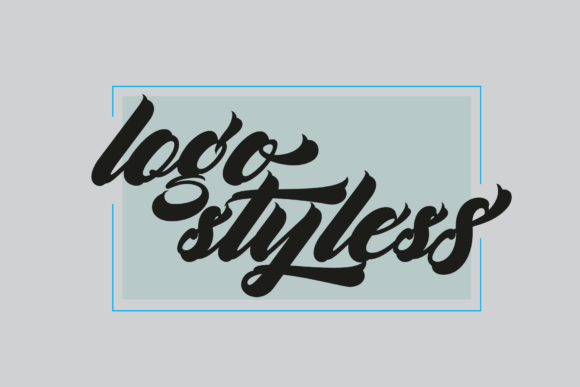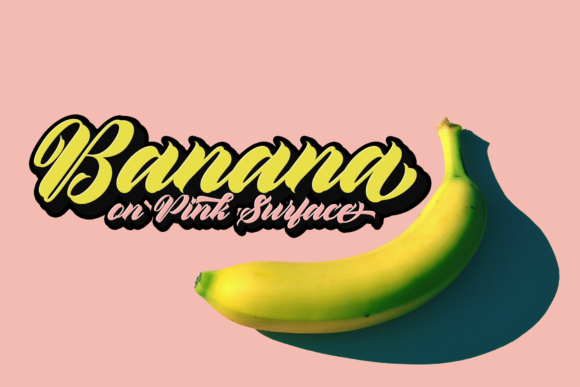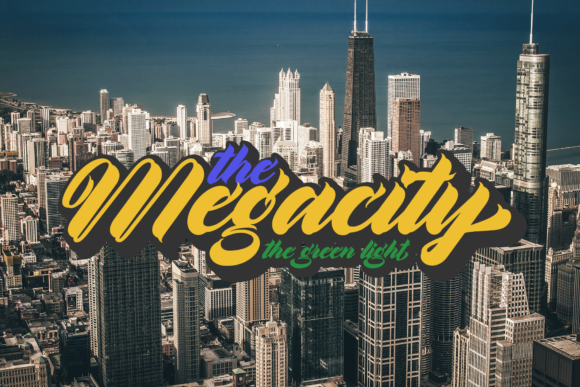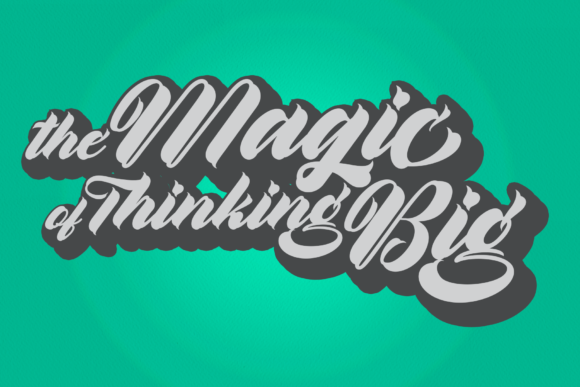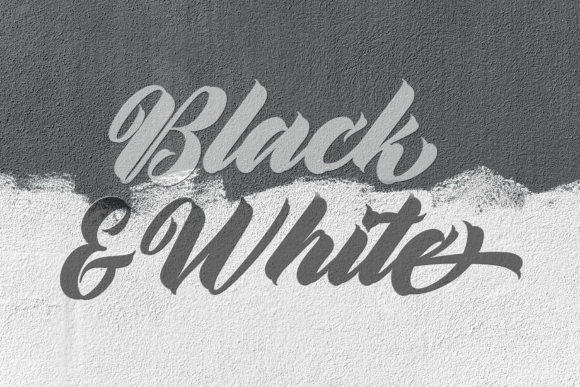
Introduction to Platanos Font
Platanos is a bold and nostalgic script with a fun feel.
Get inspired by its contemporary charm .
Key Features of Platanos Font